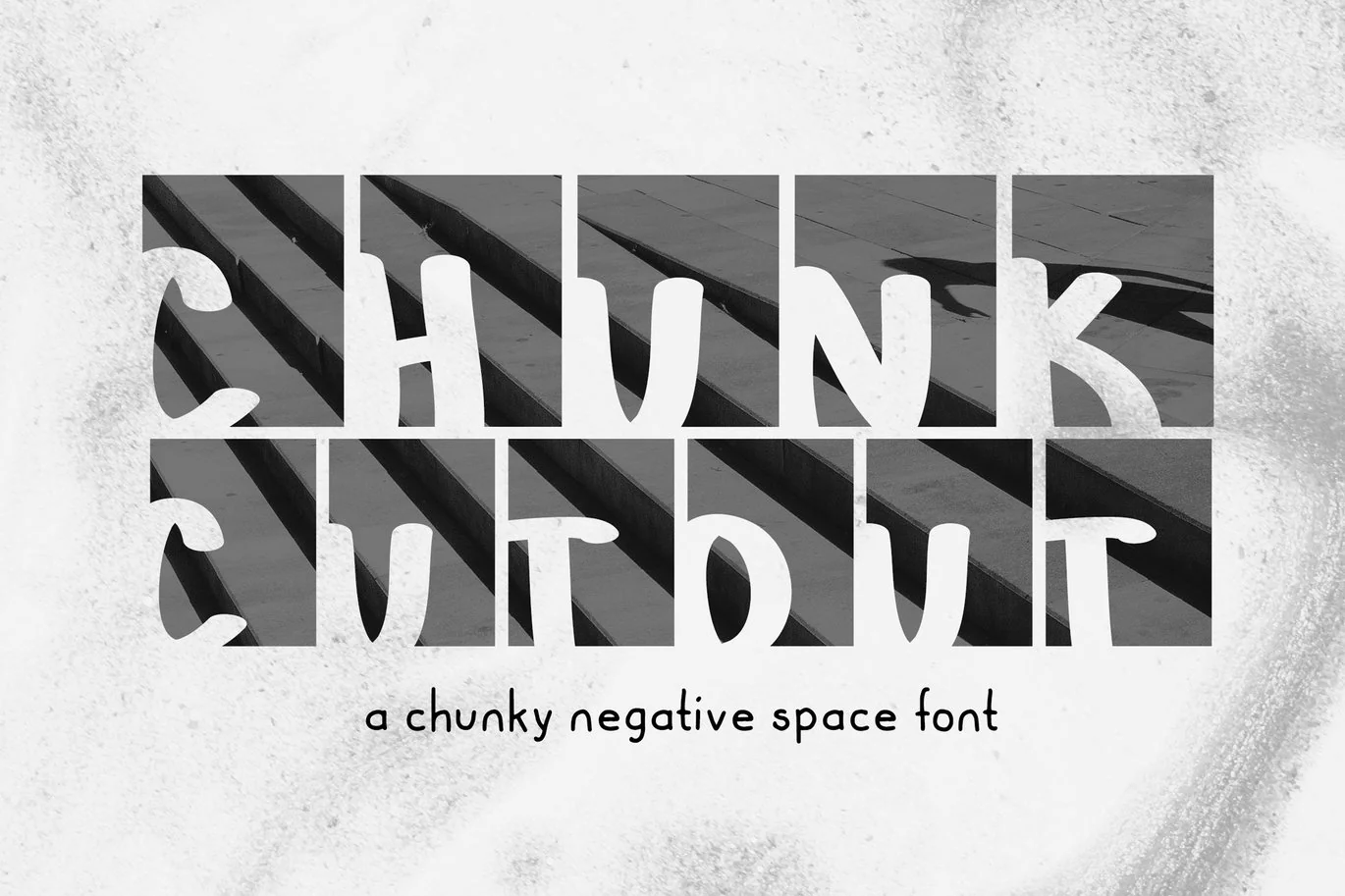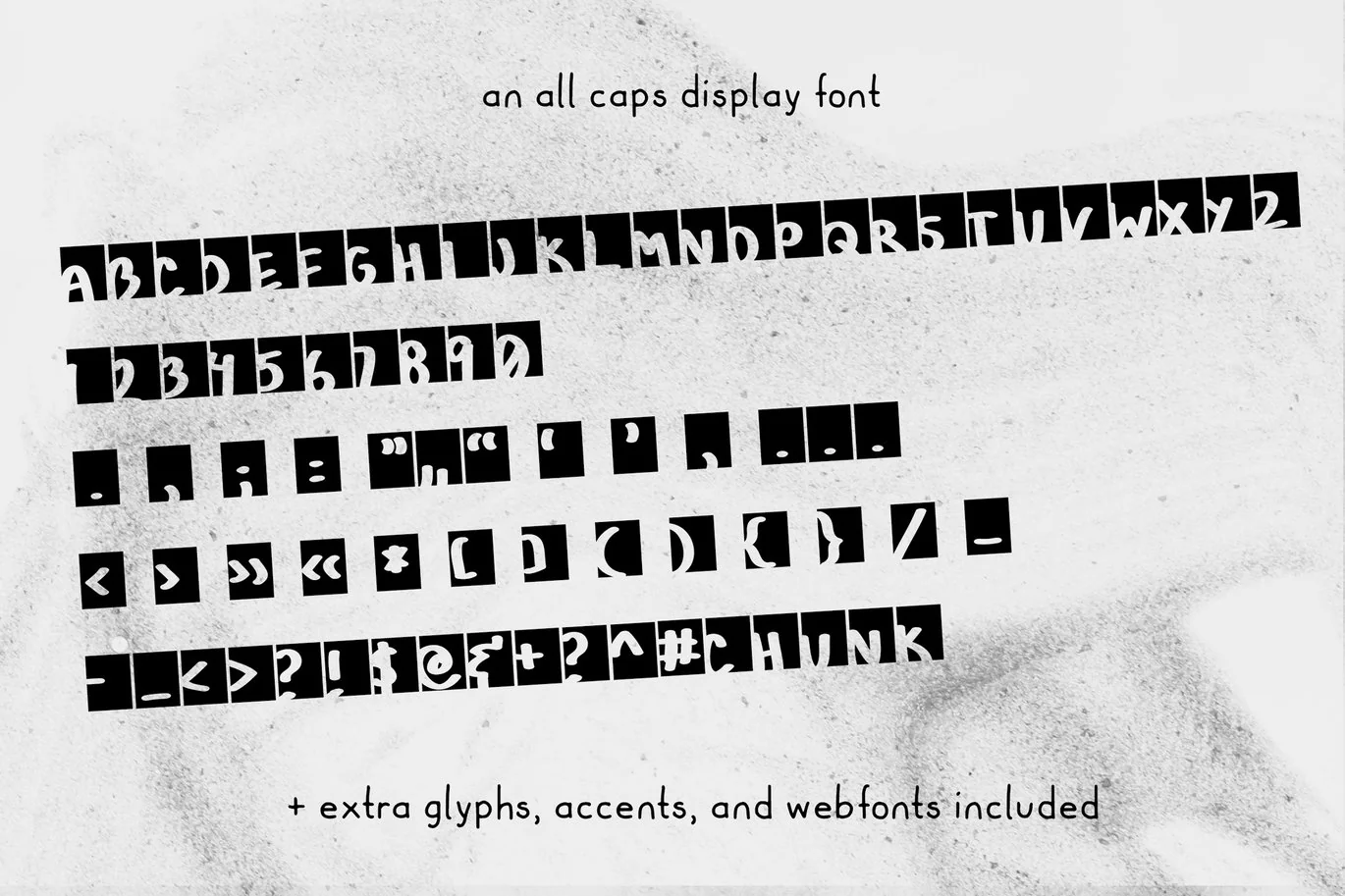
Chunk Cut Out Negative Space Font
Introducing Chunk Cut Out, a blocky, chunky, negative space font. The letters are all inverted, working with square shapes and cut out forms. I wanted to create a fun, blocky display font. If you’re looking for negative space lettering, consider giving this one a try! I think negative space letters can make for some really interesting design solutions—might be a fun choice for Cricut fonts too! It also includes web font files for your website.
There’s also extended Latin characters, as well as other glyphs! Every letter was drawn by me, and I had a ton of fun with it. Hope you enjoy it too!